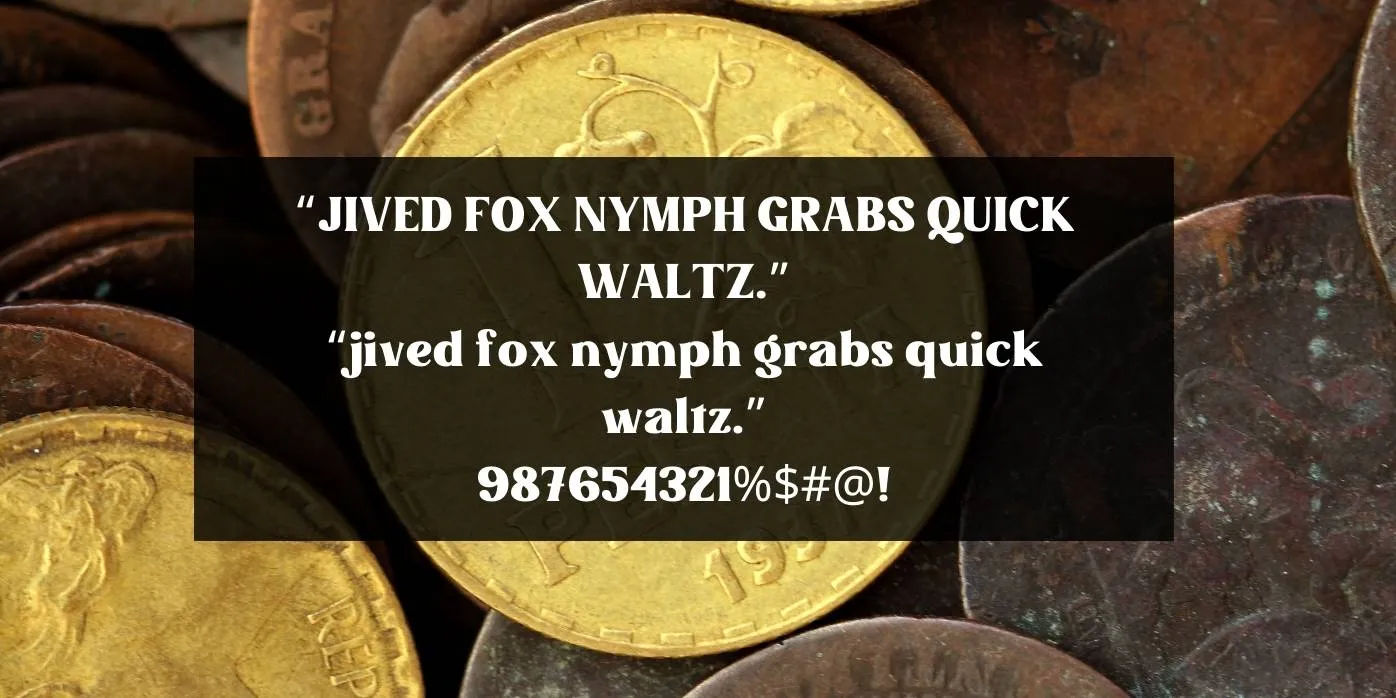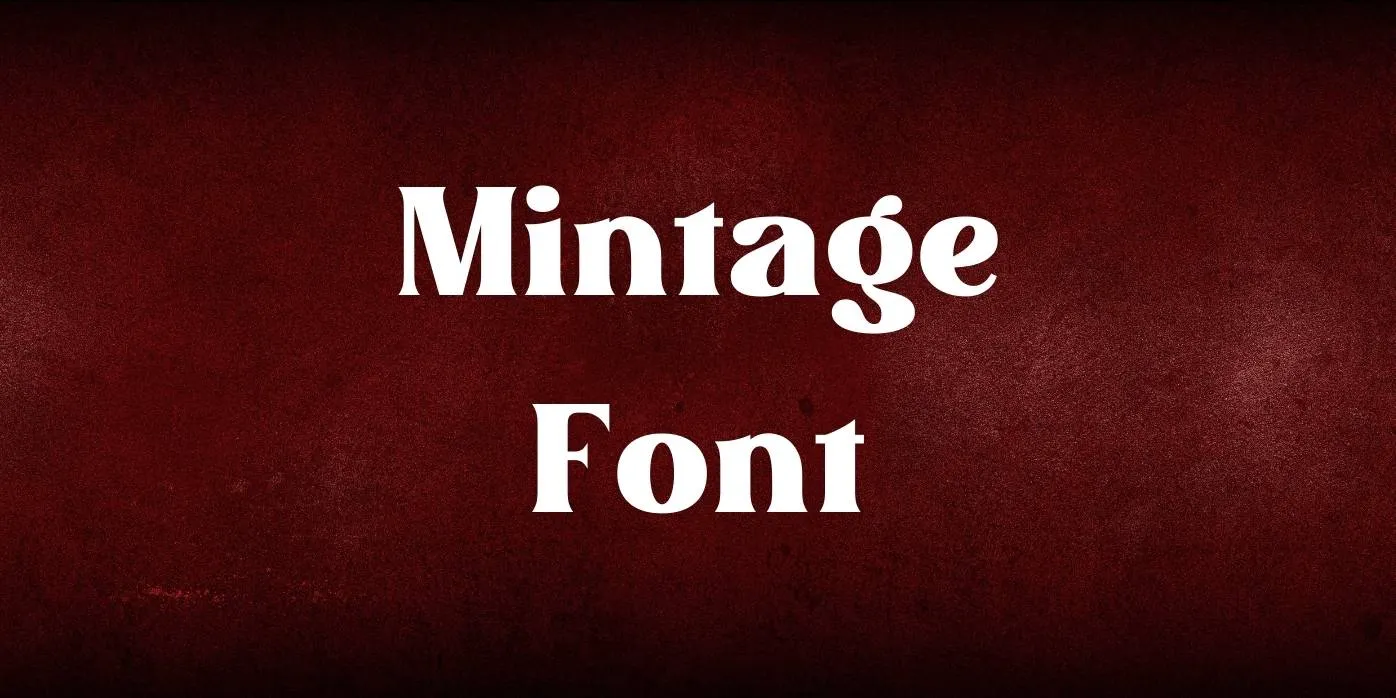
Mintage Font
In this post, we introduce a classy typeface named Mintage Font. This typeface was developed by prioritype. It belongs to the fancy font family. It contains uppercase and lowercase letters, numbers, and symbols.
For more classic features, you will have to use its alternative obelix pro font which has the same features. This font is specially designed for logotype, branding, headlines, signatures, quotes, and other creative designs. This typeface will provide the facility of an online generator tool that allows you to convert all of your simple designs to colorful graphic designs.  Usage Mintage Typeface can be used for both personal and commercial purposes.
If you are a great designer then you can use this font family for many projects such as creating graphics, logos, and web designing. It is a great font for those who are looking to add a vintage touch to their designs. Mintage Typeface is perfect for those who want to add a bit of flair to their designs. Many organizations use this font family for many projects such as posters, banners, and t-shirt designs.
This serif font has strong strokes that make it perfect for headlines and titles. One of the reasons why Mintage Typeface is so popular is because it’s very versatile. For more advanced uses, you need to use bourbon font by making a combination with this family. It can be used for both digital and print projects.
Mintage Font is a serif font. Serif fonts are the ones with small lines at the end of each letter. Who is the creator of Mintage Font? The Mintage typeface was created by prioritype.